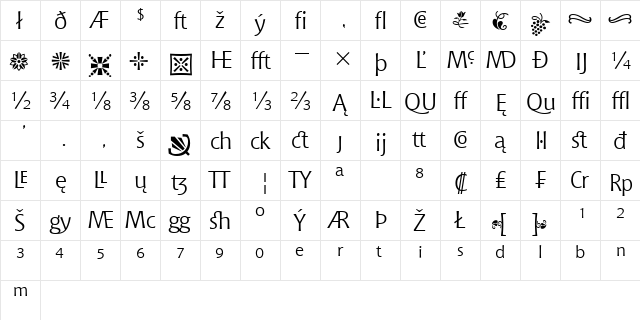
Chianti Ext BT Extension
Design Context for Chianti Ext BT Typeface
Chianti Ext BT takes a measured approach to typography — its balanced proportions and neutral character make it a reliable workhorse for both digital and print work.